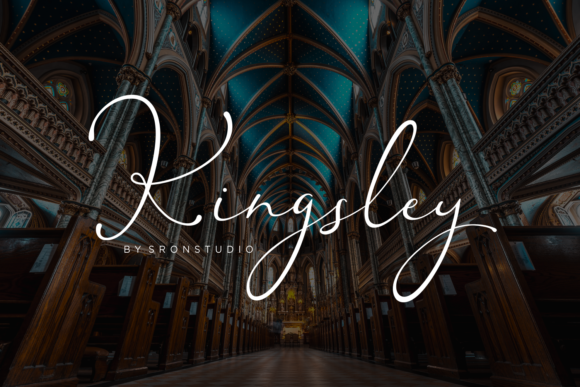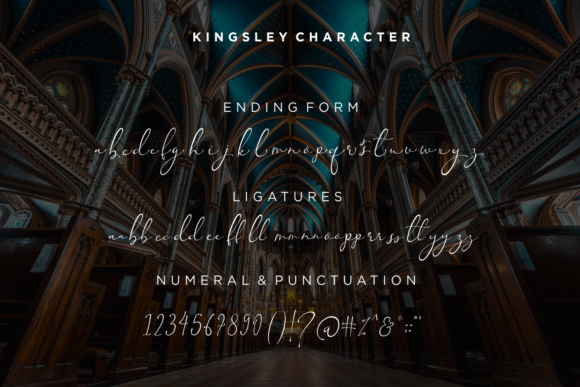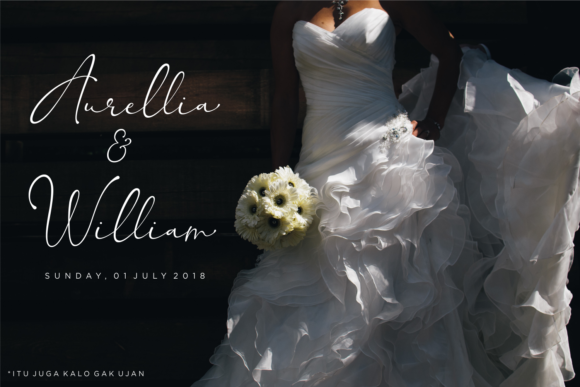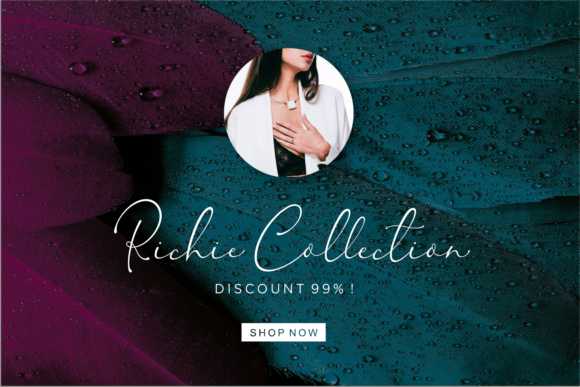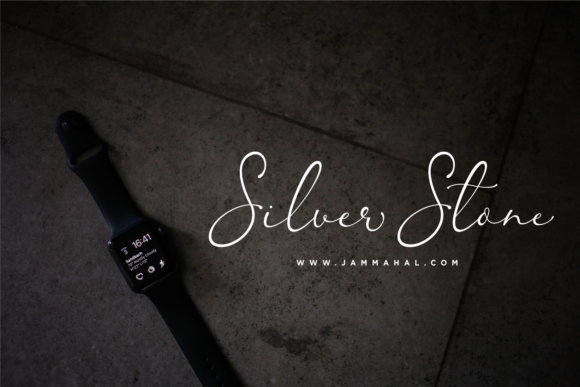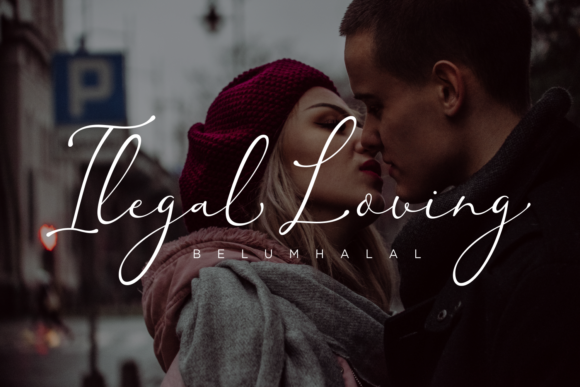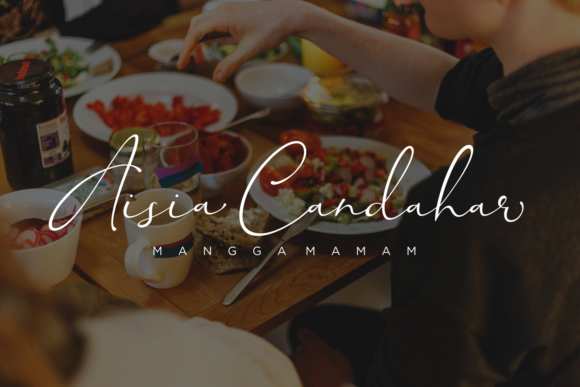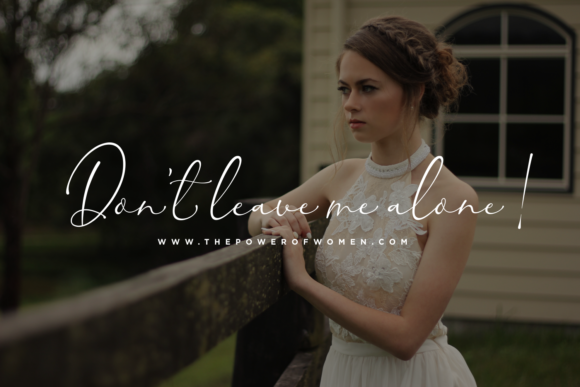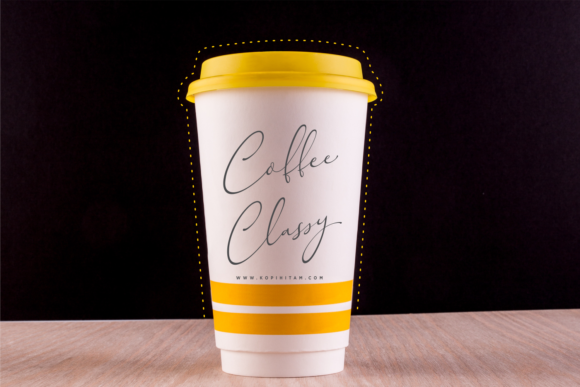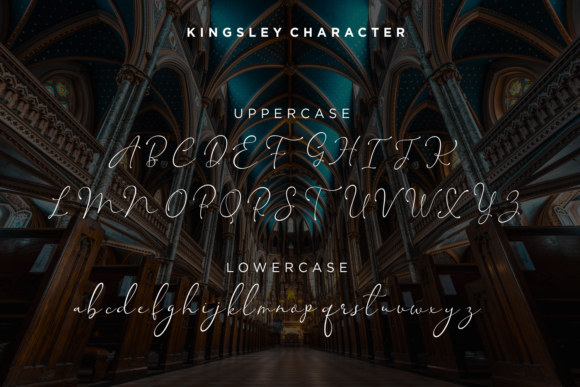
Kingsley Font
About Kingsley Font
Kingsley is a new modern & fresh script with a stylish handwritten style. It has a natural, classy look. Making it the perfect font for adding a personal handwritten touch to your projects.